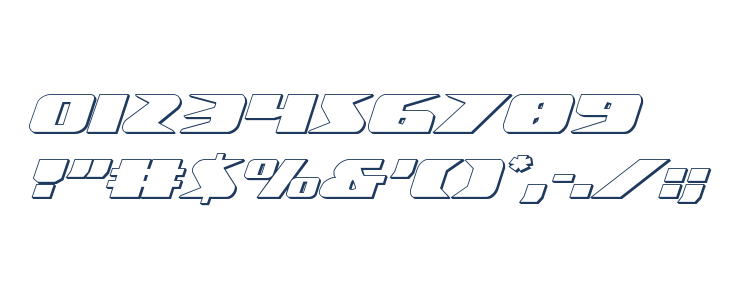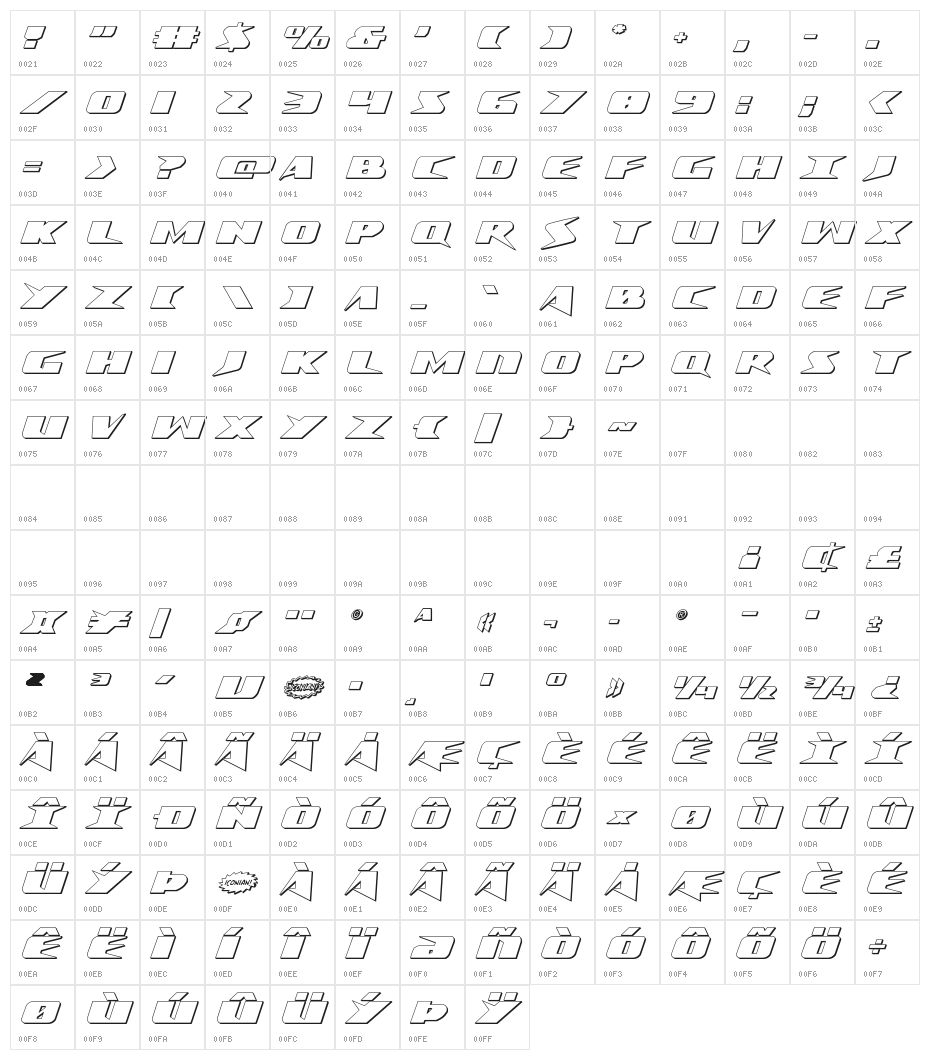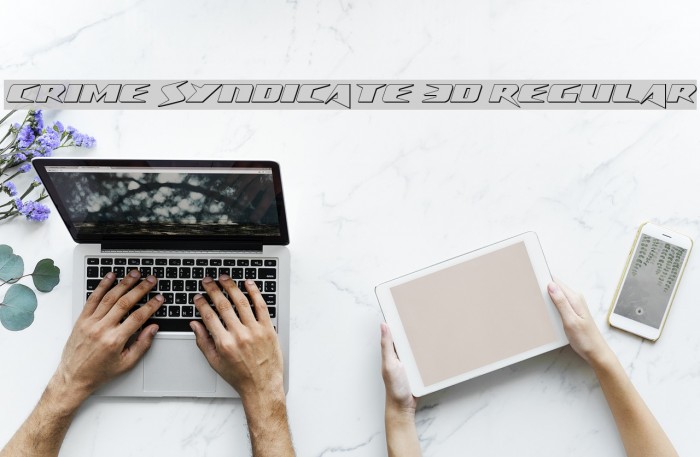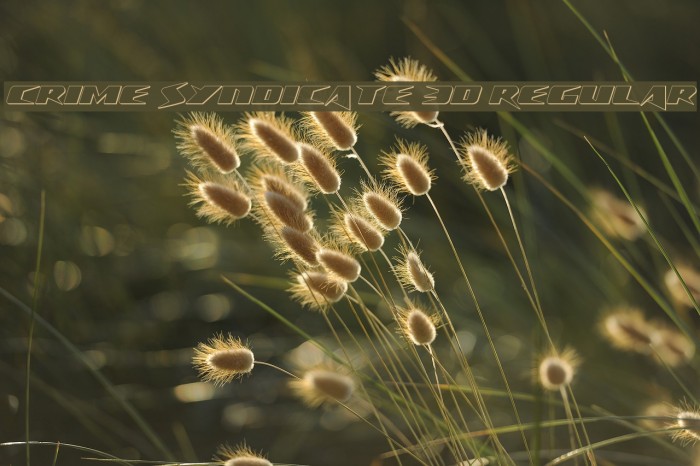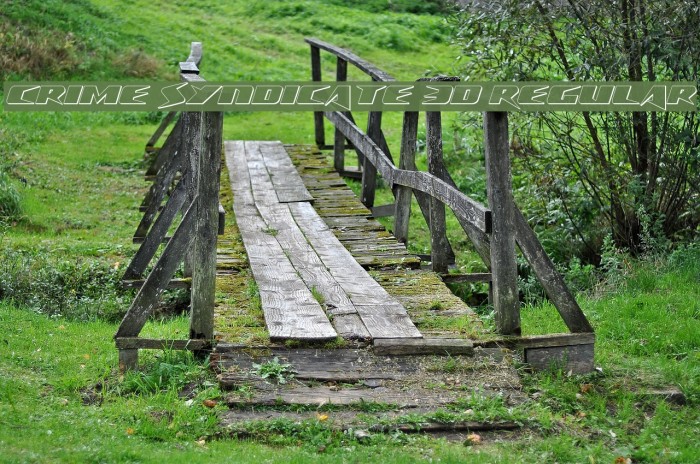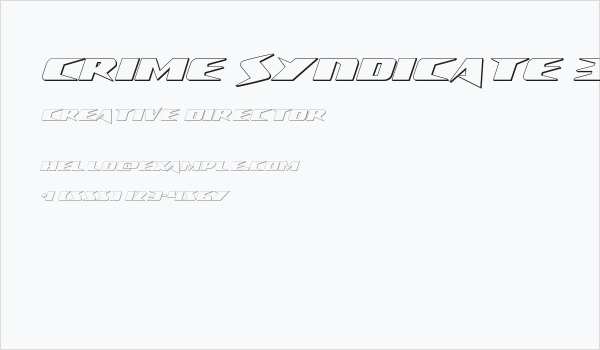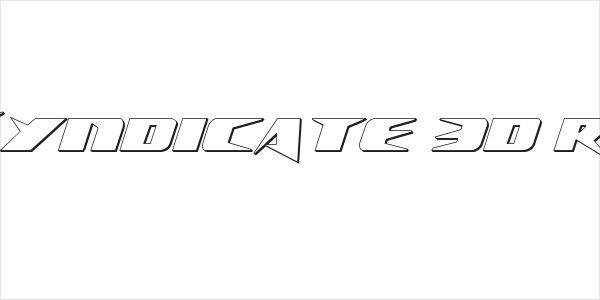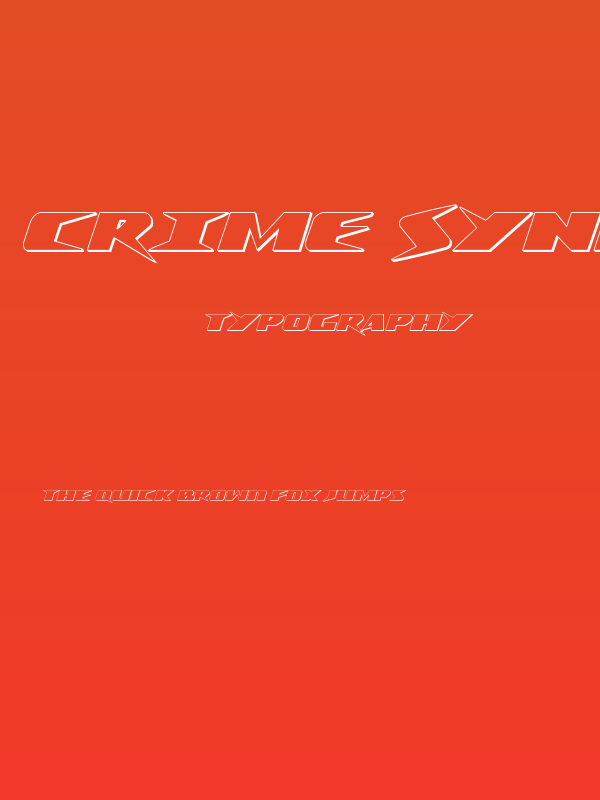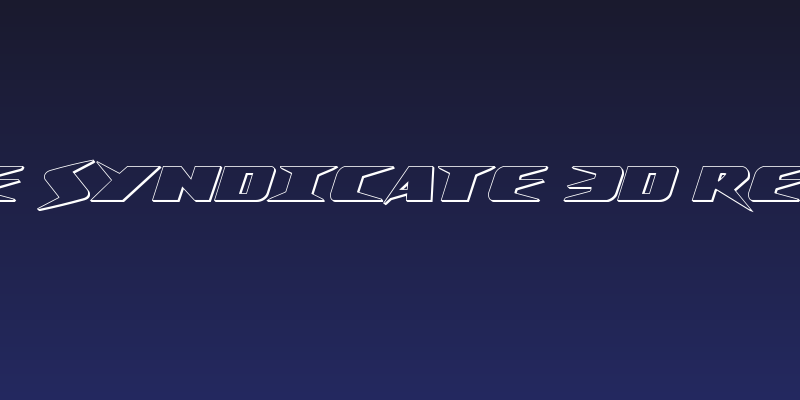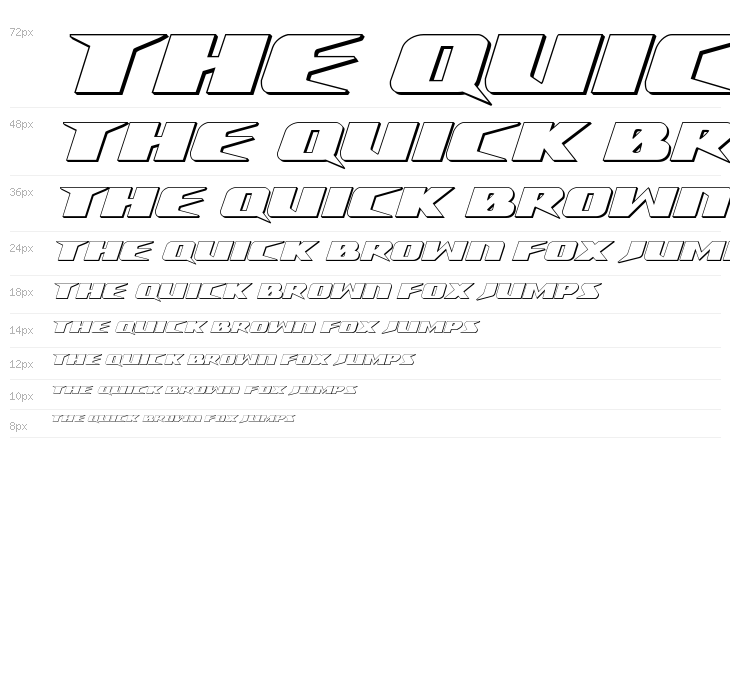
Crime Syndicate 3D Regular Font
Crime Syndicate 3D Regular Description
This font features a bold, angular design with a three-dimensional effect that gives it a dynamic and futuristic appearance. The characters are sharply defined with strong lines and geometric shapes, creating a sense of movement and depth. The uppercase and lowercase letters maintain a consistent style, with the lowercase slightly smaller but equally impactful. Numbers and special characters follow the same design principles, ensuring uniformity across all elements. The font's unique style makes it stand out, ideal for projects that require a modern and edgy look.
| Proposed Projects | Ideal for video game titles, movie posters, branding for tech companies, and any project needing a futuristic and bold aesthetic. |